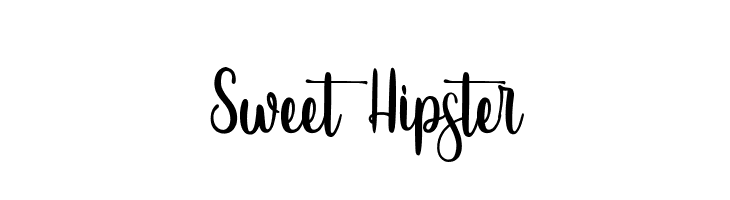
A bold, heavy italic font with high contrast and a modern, impactful style.
A dynamic, handwritten-style font with elongated, expressive characters.
A bold, rounded font with a playful, hand-drawn style.
A bold, playful font with chunky, irregular letterforms and dynamic energy.
A bold, geometric font with a futuristic and modern style.
A modern, sans-serif font with clean lines and balanced spacing.
A bold, classic serif font with strong strokes and elegant serifs.